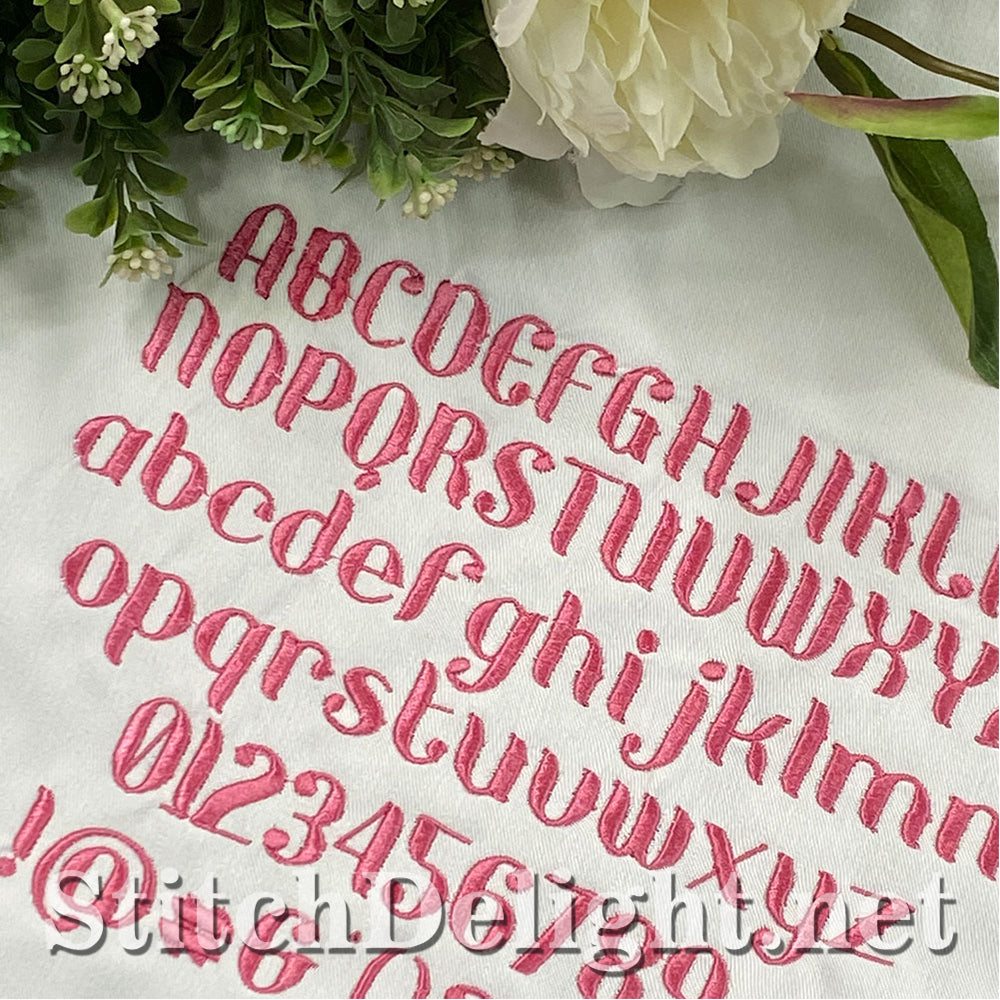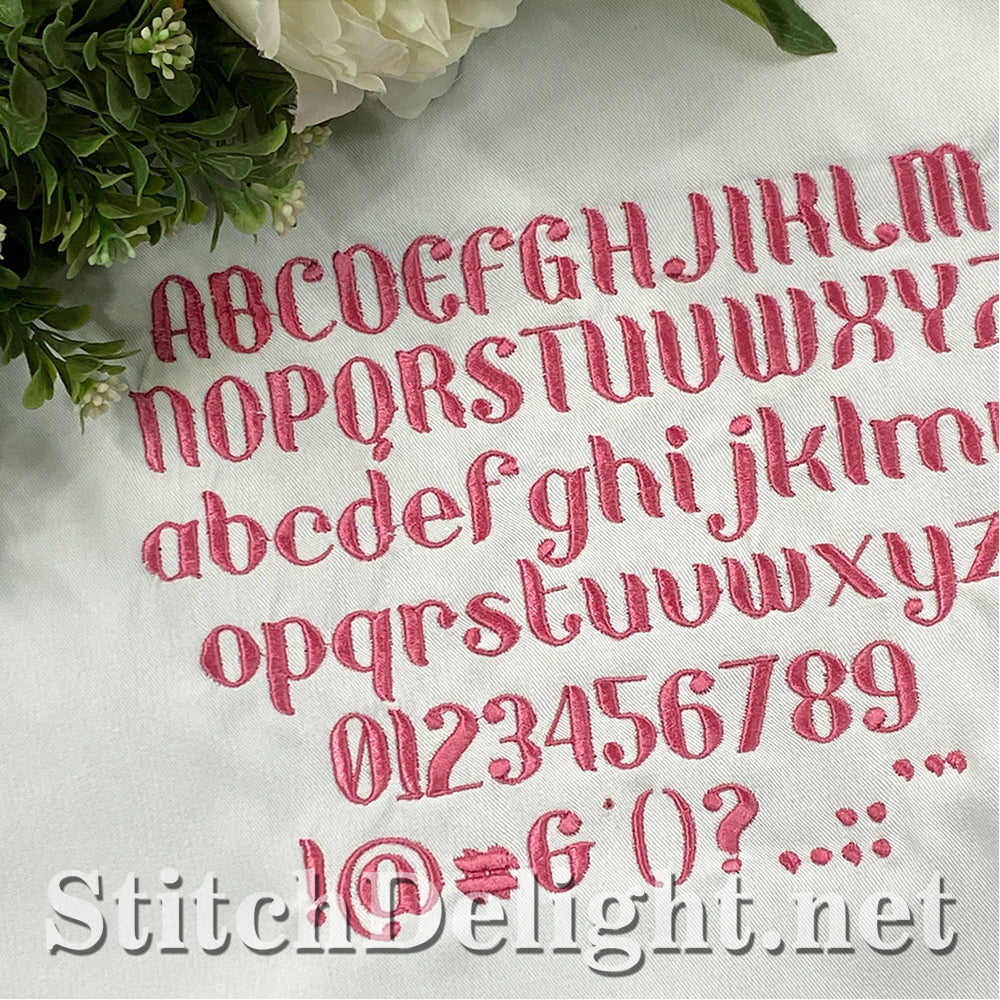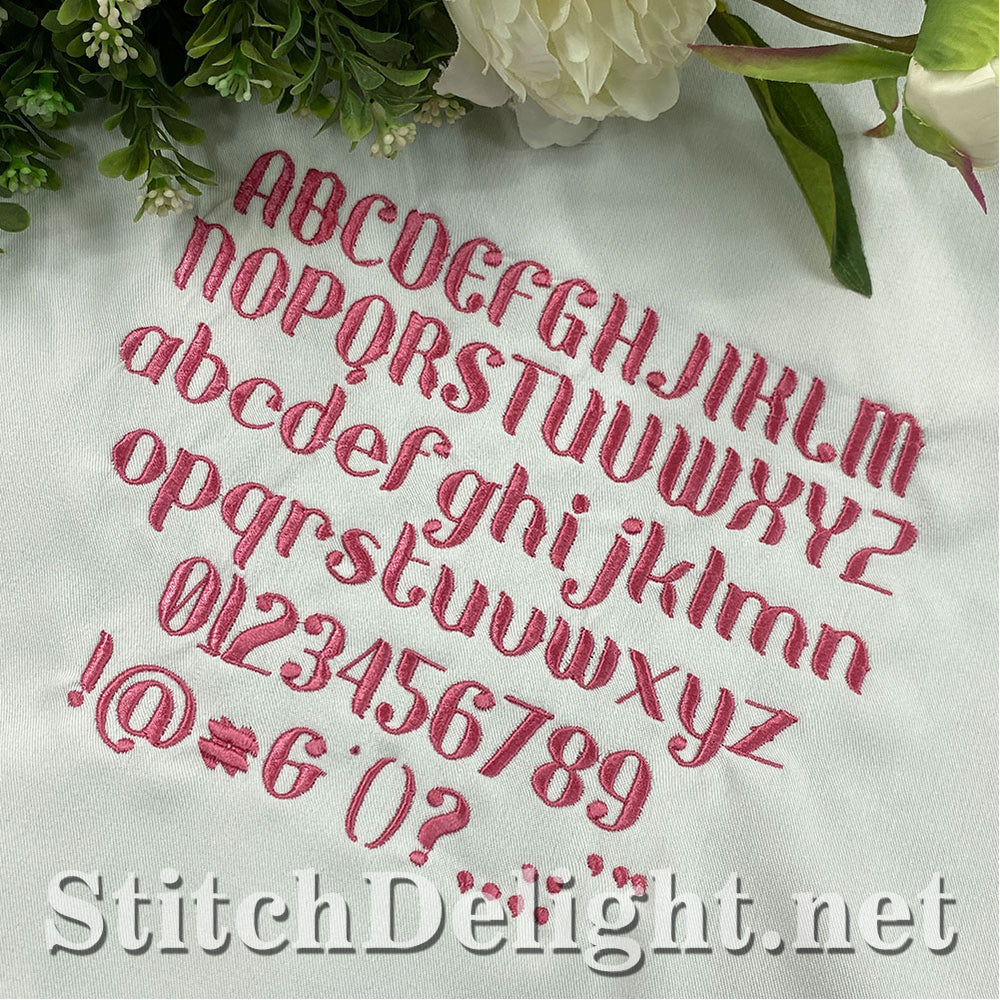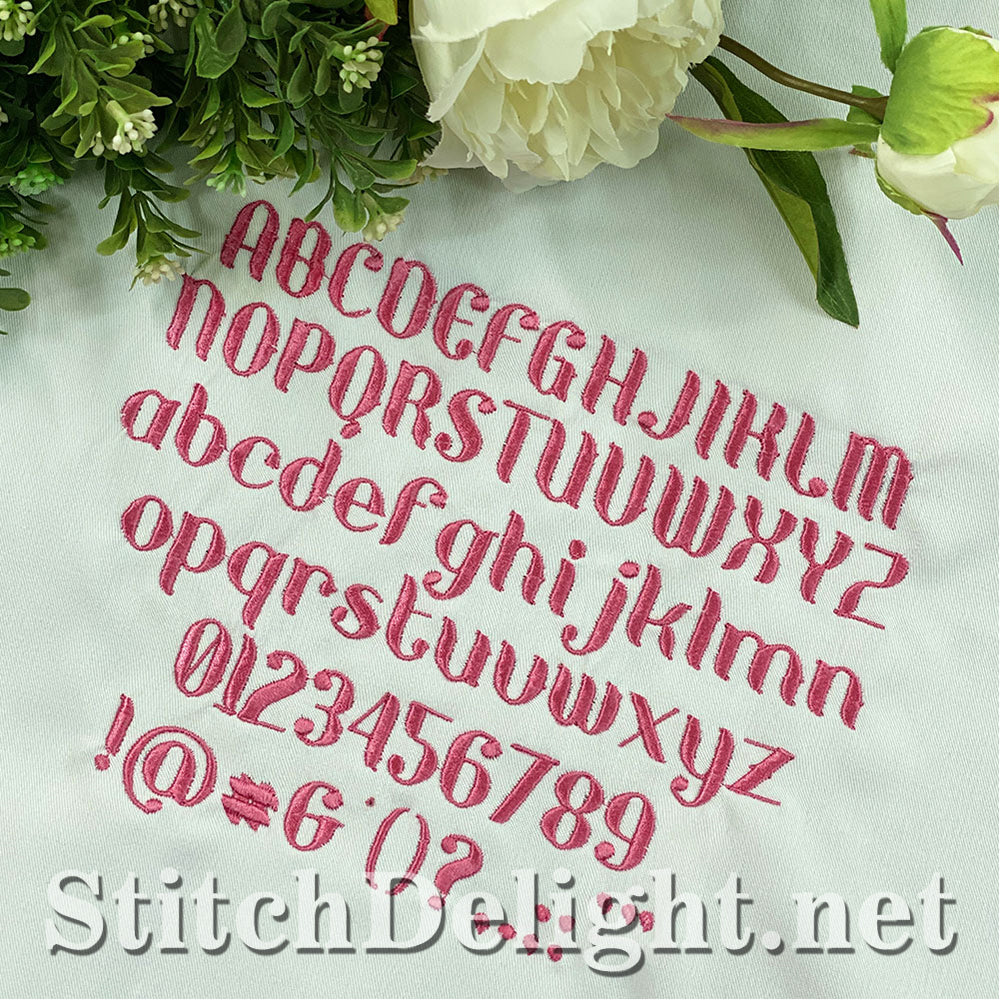
A quick and easy to read font to match SDS4181 Racing Collectors Font. This font has an average height of 0.76" and includes BX format for use with Embrilliance.